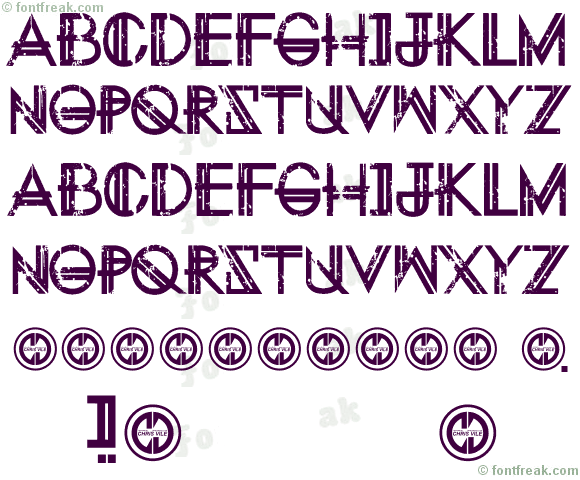
Eternity Tomorrow
About Eternity Tomorrow
Eternity Tomorrow is a striking display font designed by Chris Vile, categorized under decorative typefaces. This unique font features a blend of bold stroke weights and dynamic contrasts, giving it a robust yet playful appearance. The characters exhibit a distinctive, slightly distressed effect that adds an element of character and depth, while the spacing is well-balanced, allowing for clear readability. The decorative elements, including stylized lines and circles, contribute to its modern and artistic flair, making it ideal for attention-grabbing designs.
The Eternity Tomorrow font excels in various creative applications. It is particularly suited for wedding invitations, where its whimsical style can add an enchanting touch. Additionally, it works wonderfully on movie posters, providing a bold statement that captivates audiences. Restaurant menus can also benefit from its eye-catching aesthetics, helping to create a memorable dining experience. Furthermore, this font is perfect for branding materials, especially for businesses looking to convey a contemporary yet stylish image.
What sets the Eternity Tomorrow font apart is its ability to combine artistic expression with practical usability. The unique visual elements and striking characteristics make it not just a typeface, but a design statement that can transform ordinary text into extraordinary visuals. Whether you're crafting a special event invitation or designing a compelling brand identity, this font provides the perfect balance of style and functionality.